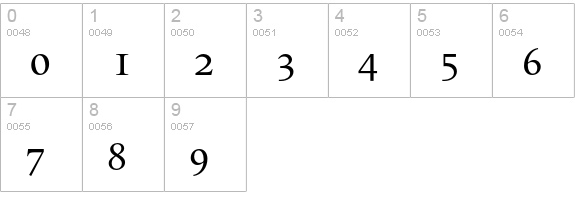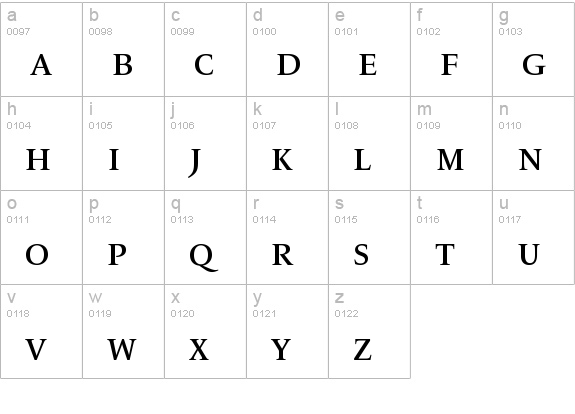
LeMondeLivre Normal Small Caps is the standard, neutral variant in the LeMondeLivre typeface family \xE2\x80\x94 well suited to general body text, paragraphs, and standard typographic work.
LeMondeLivre Normal Small Caps font is a stunning typeface that combines elegance and sophistication. Its delicate and intricate design makes it perfect for adding a touch of refinement to any project. The small caps version of LeMondeLivre Normal font adds a unique and charming aspect, allowing for the creation of eye-catching and professional designs. This font is the epitome of versatility, as it can be used in a variety of contexts such as editorial design, branding, packaging, and more. Its clean lines and balanced proportions ensure legibility even in small sizes, making it ideal for both digital and print applications. One of the most outstanding features of LeMondeLivre Normal Small Caps font is its ability to capture attention while maintaining a subtle and understated elegance. Its timeless look gives any design a classic and refined aesthetic, making it a perfect choice for projects that require a touch of sophistication. The best part is that LeMondeLivre Normal Small Caps font is freely available to download at FontsMarket.com. This means that you can easily access and use this incredible font without any cost. Whether you are a professional designer or simply enjoy experimenting with typography, this font is a must-have addition to your collection. With its exceptional design and effortless style, LeMondeLivre Normal Small Caps font is sure to elevate your designs to new heights. Embrace the beauty and versatility of this font and let it inspire your creativity. Download it today and unleash the full potential of your projects.